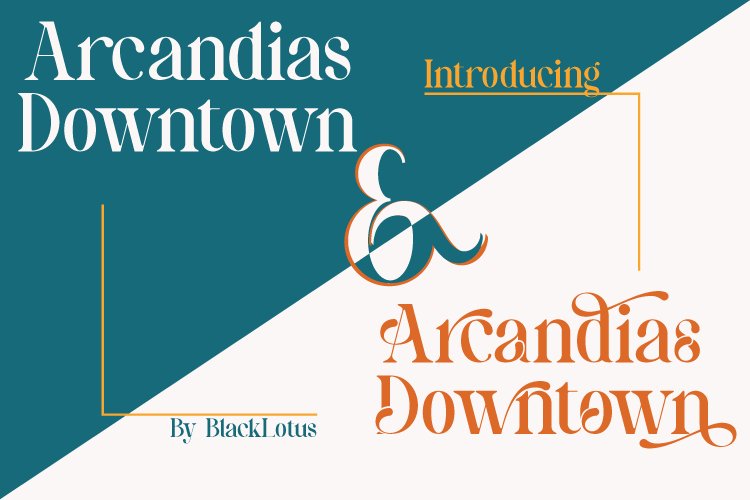
Arcandias Downtown is a serif with high contrast combined with alternates so that it can match projects created using this font with trends in modern times.This font is made with precision for each character so as to create a quality font that is beautiful to look at.
Arcandias Downtown can be used in various projects, both Magazine Titles, Posters, Newspapers, and others.
This font has a variety of alternatives, so that any project that uses this font will look striking, beautiful, and modern.